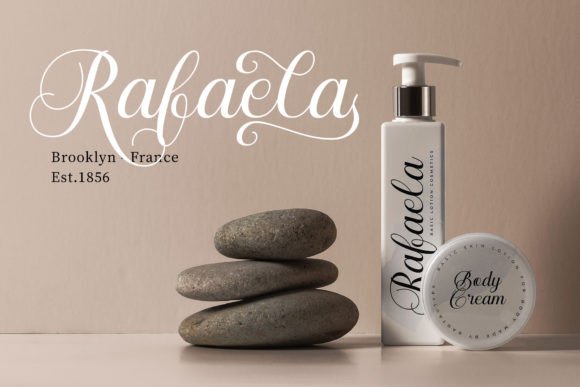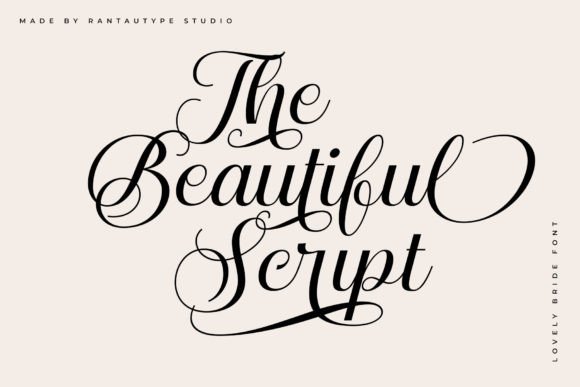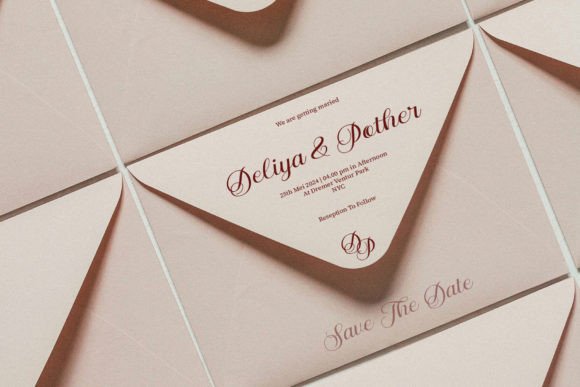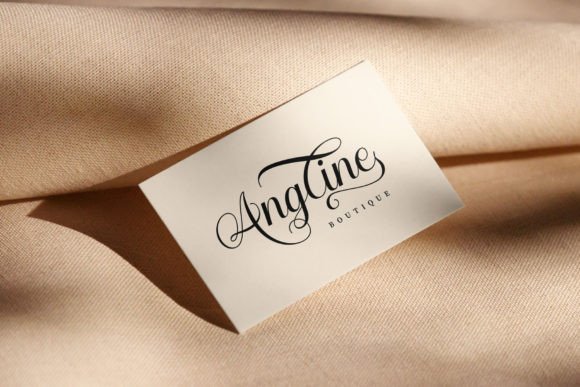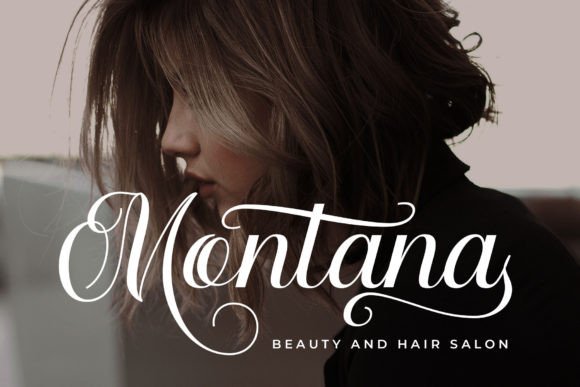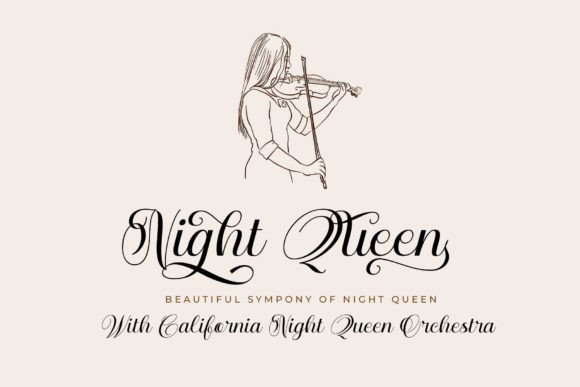
Introduction to Jasline Font
Have you ever been scrolling through your social media feed and stumbled upon a beautifully designed logo or quote that caught your eye? That’s exactly what happened to many designers who discovered the Jasline Font – a stunning calligraphy script font that adds a touch of elegance to any design project.
As a valuable design resource, Jasline Font is perfect for adding a personal and sophisticated touch to your creative project. Whether you’re working on a logo, title, watermark, or branding, this beautiful font is sure to impress. With its beautiful flow character and feminine touch, Jasline Font is a must-have for designers who want to elevate their designs to the next level.
Key Features of Jasline Font
- High-quality design resource ideal for creative projects, suitable for various design needs.
- Comes in a transparent background format, allowing for easy integration with different design elements.
- Unique characteristics include a clean and modern aesthetic, making it perfect for modern design projects.
- Designed to be highly legible, with clear and crisp typography that enhances the overall visual appeal of any creative project.
Honest Review: Jasline Font
As a designer, I’m always on the lookout for high-quality design resources to enhance my creative projects. The Jasline Font is one such find that caught my attention. In this review, I’ll share my honest thoughts on what works well and what might be improved.
- Clean and modern design aesthetic: The Jasline Font boasts a sleek, modern design that’s perfect for contemporary creative projects.
- High-quality font files: The font files are crisp and clear, making them ideal for print and digital applications.
- Limited font styles: The Jasline Font is only available in a few styles, which might limit its versatility for some designers.
- No transparent background option: While the font is beautiful, it doesn’t offer a transparent background option, which might be a drawback for designers working with complex designs.
Overall, I’m impressed with the Jasline Font’s modern design and high-quality font files. While it may have some limitations, it’s still a valuable design resource for anyone working on a creative project. If you’re looking for a clean, modern font for your next design, the Jasline Font is definitely worth considering.
Introduction to Jasline Font
Common Use Cases for Jasline Font
Jasline Font is commonly used in a variety of design applications, including:
- Branding and logo design.
- Graphic design and visual identity.
- Web design and development.